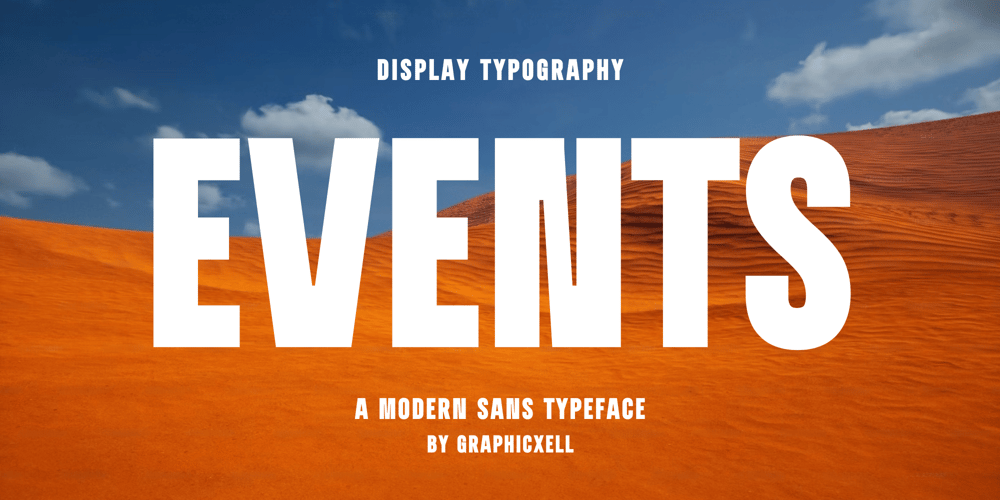
Events Font Family was designed by Graphicxell and published by Graphicxell. Events contains 1 styles and family package options. Thanks Modern Bold Sans Font Typeface inspired by the famous minimalist logo perfect for the purposes of designing templates, brochures, videos, advertising branding, logos, invitation, layout design, elegant crafting, beauty design and other